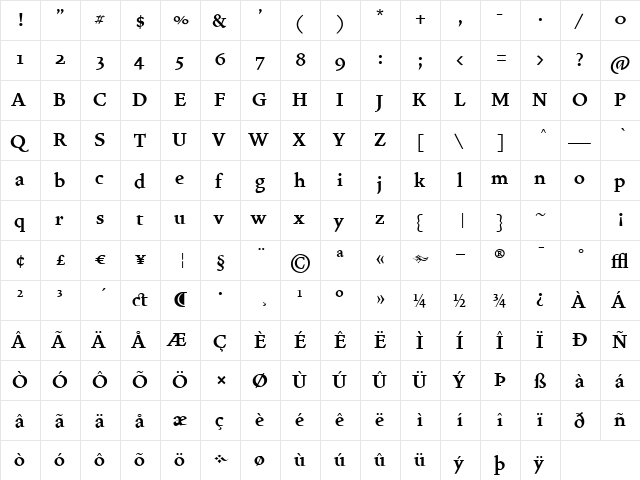
VendettaBold Bold Font Preview
VendettaBold Bold
VendettaBold Bold Font Details
| Foundry | Emigre |
| Designer | John Downer |
Design Context for VendettaBold Typeface
VendettaBold is a composed and adaptable typeface that performs quietly and consistently across a wide range of design contexts. Its bold stroke weight gives it real presence on the page.